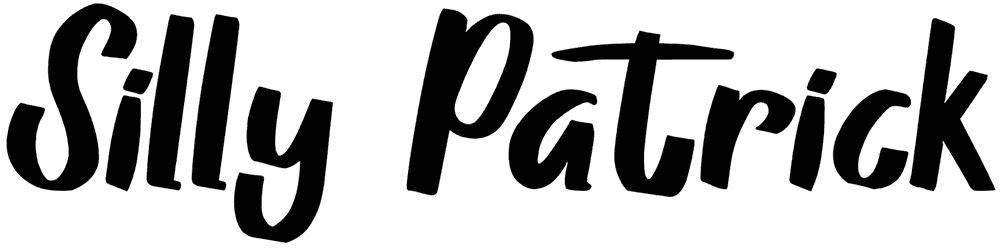
Silly Patrick Font
If you want to strongly impress the audience with the quality of your graphic content, every piece of it, including the chosen font, must be flawless, and on this occasion, a lovely script font such as Silly Patrick can be really helpful.
This fun font has angular and rounded characters, so you can utilize it in any kind of casual artwork like animation posters, logos, branding, illustrations, or social media posts. It carries a vibe of dynamic, coolness, and vivacity.